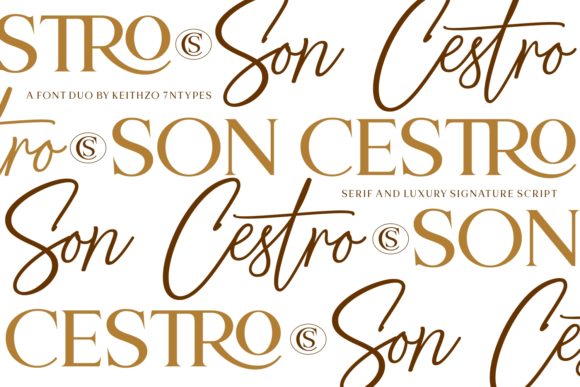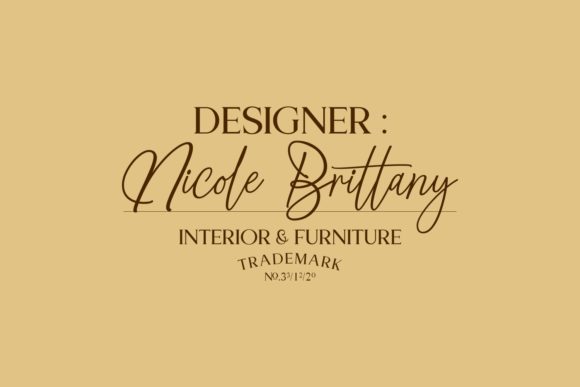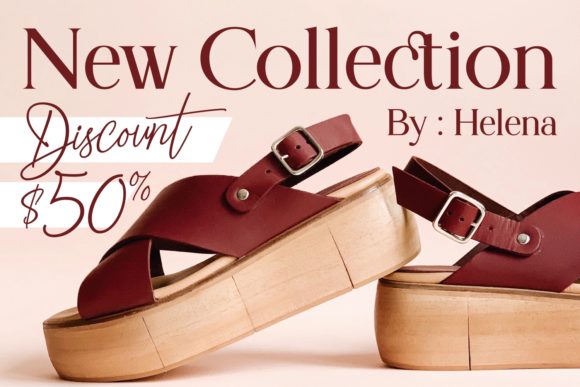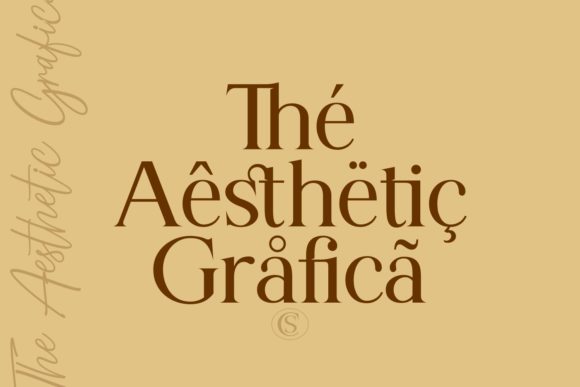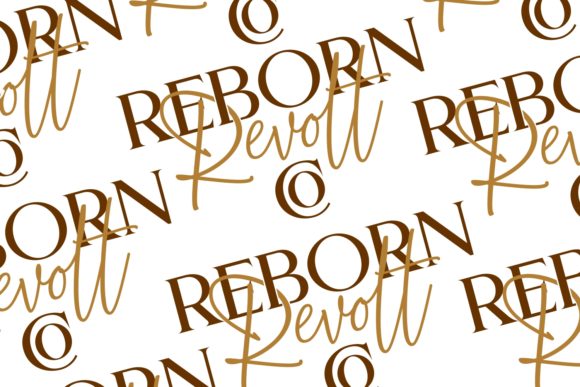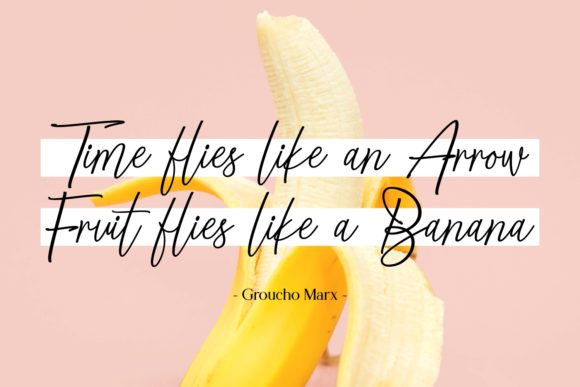
Son Cestro Duo Font
About Son Cestro Duo Font
Son Cestro is a sweet, soft hand-lettered font duo. The playful rounded characters of the script font, mixed with the elegance of the serif, make it the perfect font for creating stunning stationery art. Son Cestro comes packed with PUA encoded characters, that will allow you to add a decorative touch within seconds. Fall in love with its authentic feel and use it to create gorgeous wedding invitations, beautiful stationary art, eye-catching social media posts, and cute greeting cards.